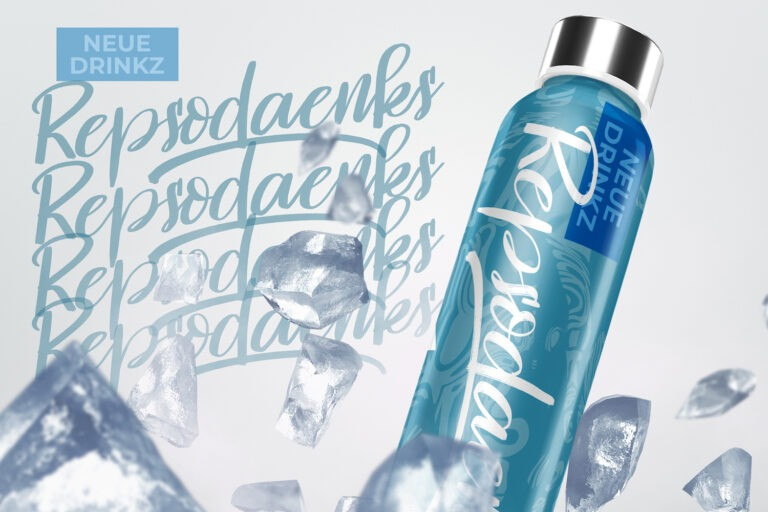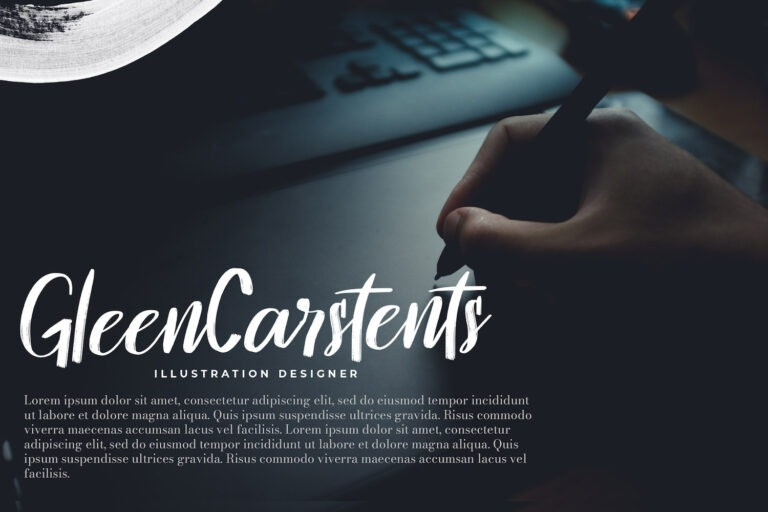
Hakodate Brush Font
Hakodate Brush Font is a font with distinctive handwritten characters perfect for branding projects, logos, wedding designs, media posts, advertisements, product packaging, product designs, labels, photography, watermarks, invitations, stationery, and any project who need handwritten dishes.